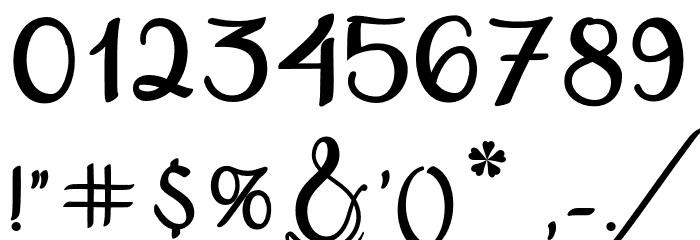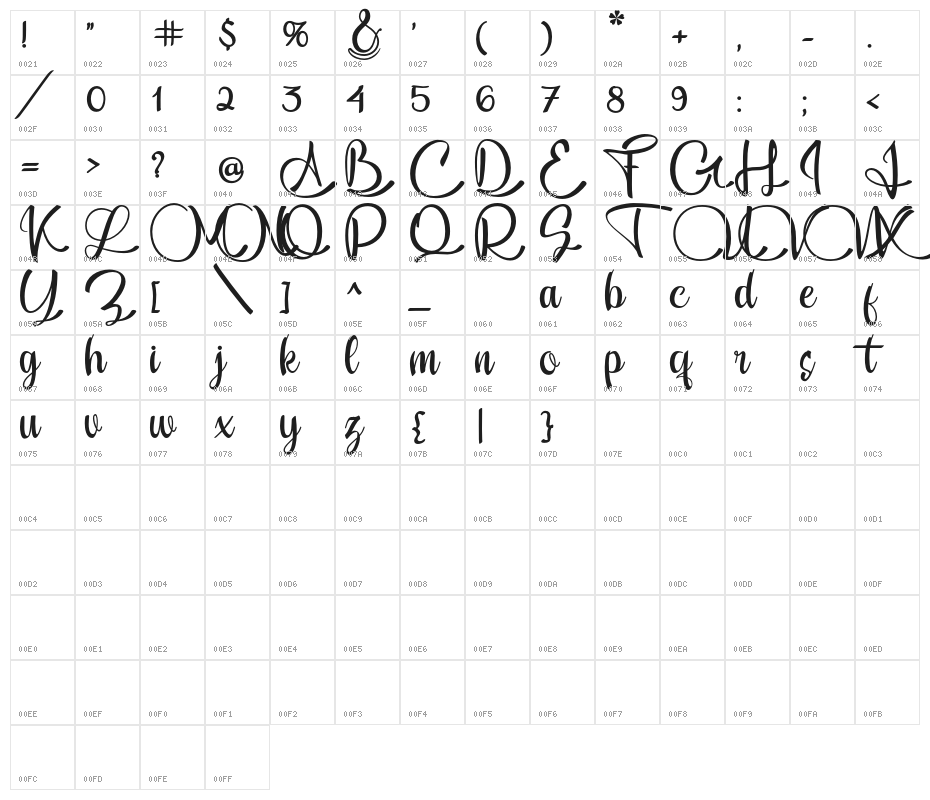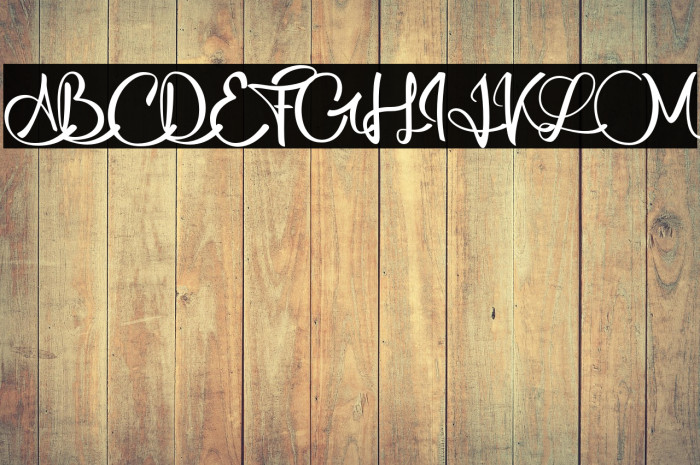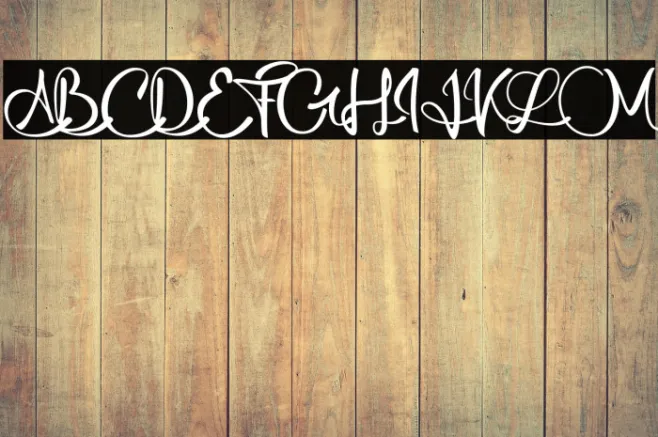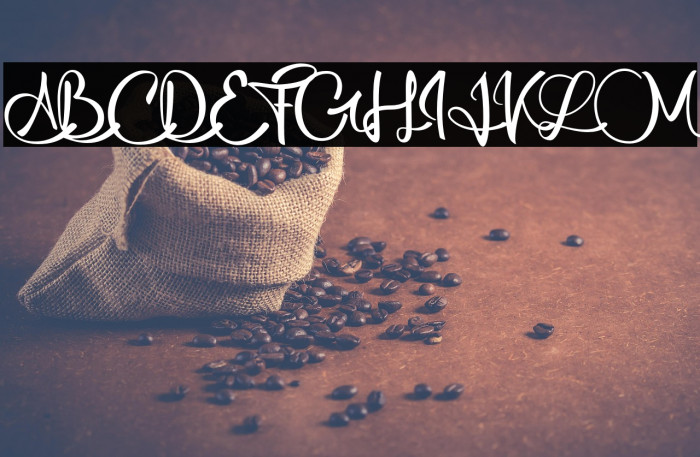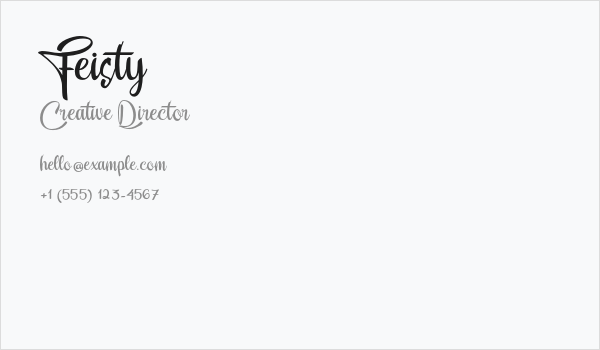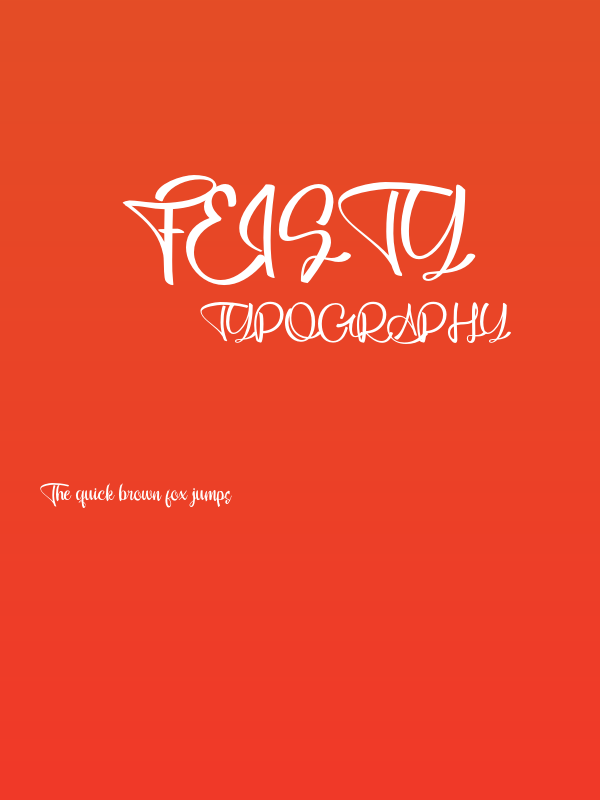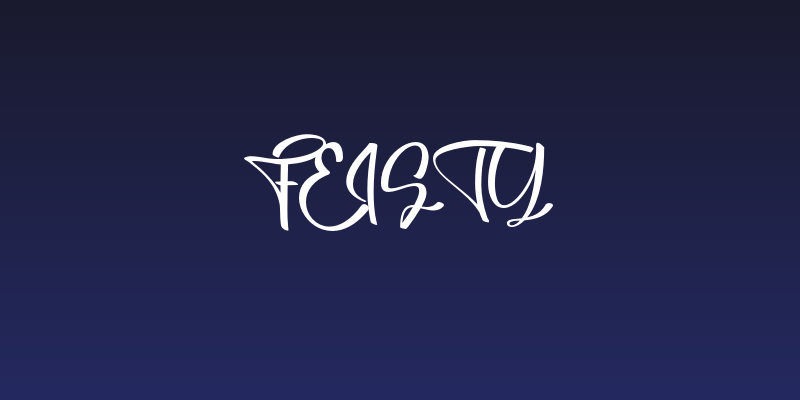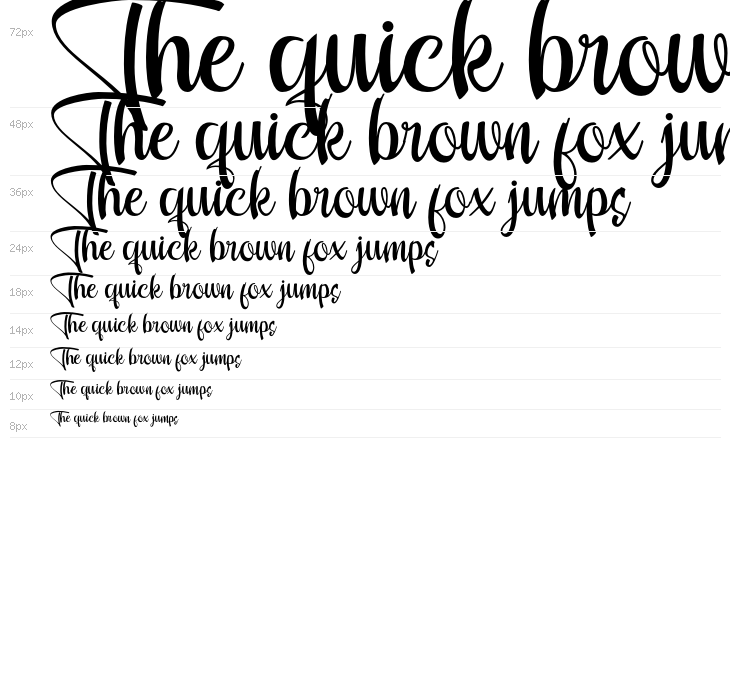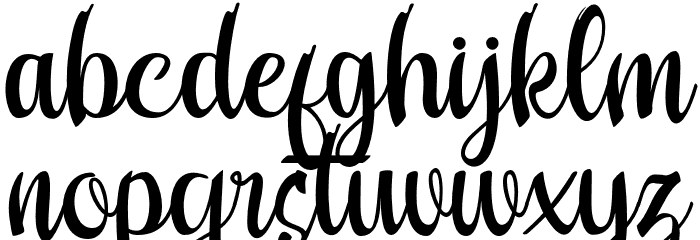
Feisty Font
Feisty Description
This font features a lively and energetic script style with a playful and whimsical touch. The uppercase letters are characterized by their flowing, interconnected strokes, creating a sense of movement and elegance. The lowercase letters maintain this fluidity, with a slightly more compact and rounded form, adding to the overall charm. The numerals are bold and clear, ensuring readability while maintaining the font's distinctive style. Special characters are creatively designed, fitting seamlessly with the rest of the typeface. This font exudes a sense of fun and creativity, making it ideal for projects that require a personal and artistic flair.